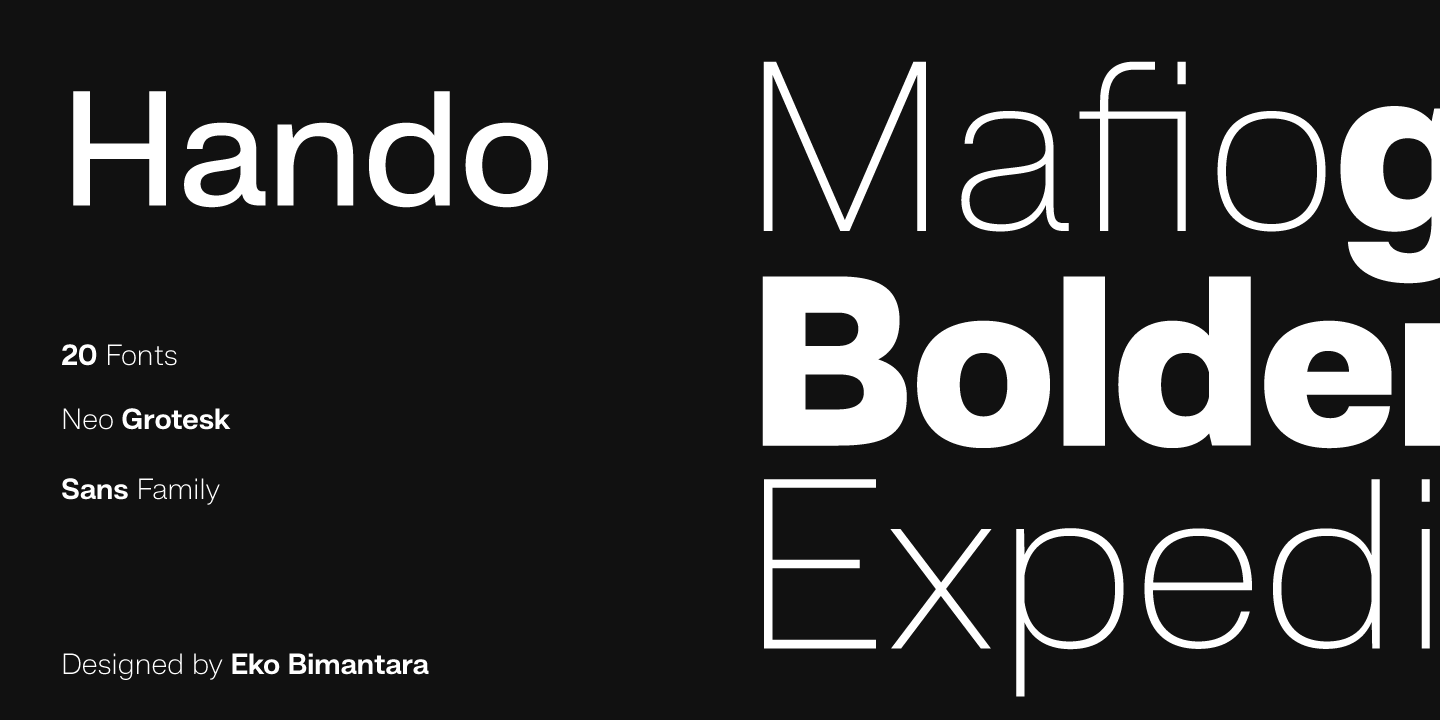
Perfect for artisan craft branding, handmade product labels, workshop signage, maker space materials, DIY project instructions, craft fair promotions, traditional skill demonstrations, and authentic craftsmanship marketing.
This font is exciting because it captures the essence of skilled handwork and traditional craftsmanship with letterforms that embody the precision, dedication, and authentic artistry found in time-honored manual trades and artisan practices.
Master the art of authentic craftsmanship with Hando Font Free Download, a distinctive typeface that embodies the skill, precision, and timeless tradition of handcrafted excellence. This exceptional font brings the authentic spirit of artisan trades and manual craftsmanship to contemporary design projects, making it perfect for businesses and organizations celebrating the enduring value of skilled handwork and traditional manufacturing methods.
Hando Font features carefully constructed letterforms with artisan characteristics and crafted proportions that immediately evoke the dedication and skill of traditional handwork. The thoughtfully designed characters combine craftsman aesthetics with modern functionality, creating immediate associations with quality workmanship, individual attention to detail, and the authentic human touch that distinguishes handcrafted products from mass-produced alternatives in today's automated world.
The font's remarkable authenticity makes it invaluable for artisan businesses, craft workshops, and traditional skill organizations where conveying genuine craftsmanship and hands-on expertise is essential for building customer trust and market differentiation. Whether you're designing marketing materials for woodworking studios that celebrate traditional techniques, creating promotional content for pottery workshops teaching ancient skills, or developing brand identities for handmade furniture companies, Hando Font delivers the authentic craftsman aesthetic that resonates with audiences seeking genuine artisan quality.
Craft professionals and artisan businesses worldwide choose the Hando Font Free Download for projects requiring craftsmanship credibility and traditional skill appeal. The font works brilliantly for blacksmithing studios preserving ancient metalworking arts, textile artisans celebrating hand-weaving traditions, jewelry makers showcasing individual craftsmanship, and any business seeking to establish connections with customers who appreciate traditional skills and authentic handwork over industrial production methods.
The comprehensive Hando Font family includes variations that maintain the signature craftsman character while providing design flexibility for diverse artisan and traditional skill applications. Each character demonstrates exceptional attention to handcraft design principles, ensuring the authentic character remains genuine and visually compelling across all sizes, from detailed workshop instruction materials to large-scale craft fair signage and artisan market displays.
This typeface excels in applications where creating atmosphere of authentic craftsmanship and traditional skill mastery is crucial for establishing artisan credibility and customer appreciation. The crafted letterforms create immediate associations with quality handwork that eliminates the need for additional craft elements, allowing the typography itself to communicate skill dedication, traditional knowledge, and the irreplaceable value of human craftsmanship.
Hando Font's technical excellence ensures optimal performance across both traditional print applications favored by craft businesses and modern digital platforms used for artisan marketing. The distinctive letterforms maintain their craftsman appeal when reproduced on various materials, from workshop manuals to product packaging that must convey authentic handcrafted quality and traditional skill heritage.